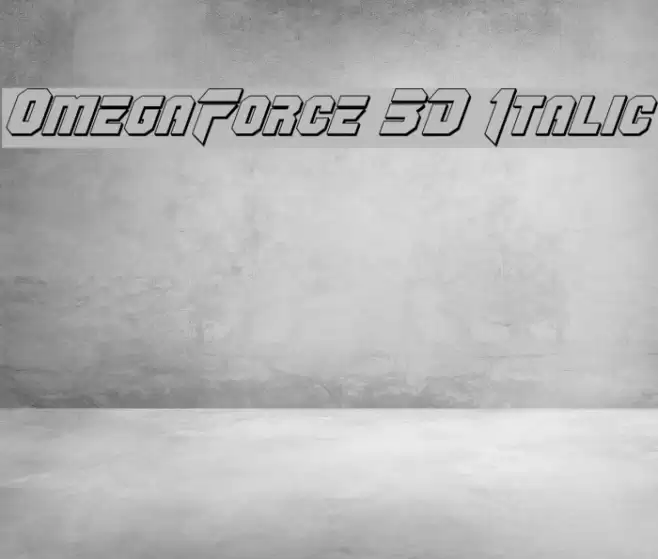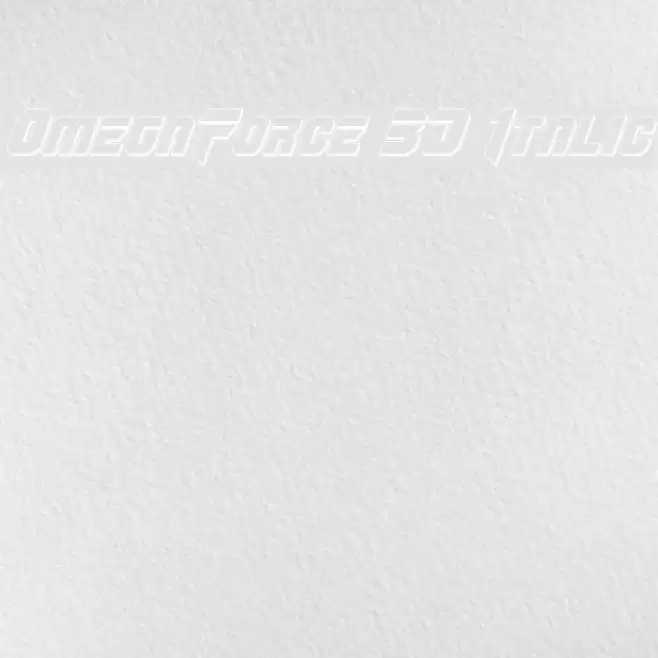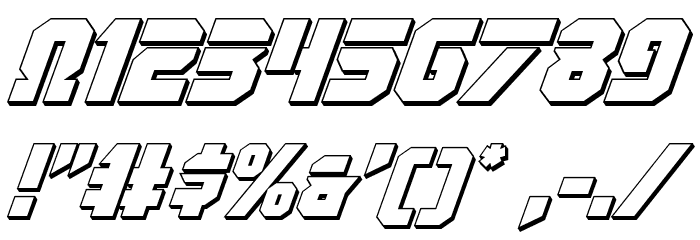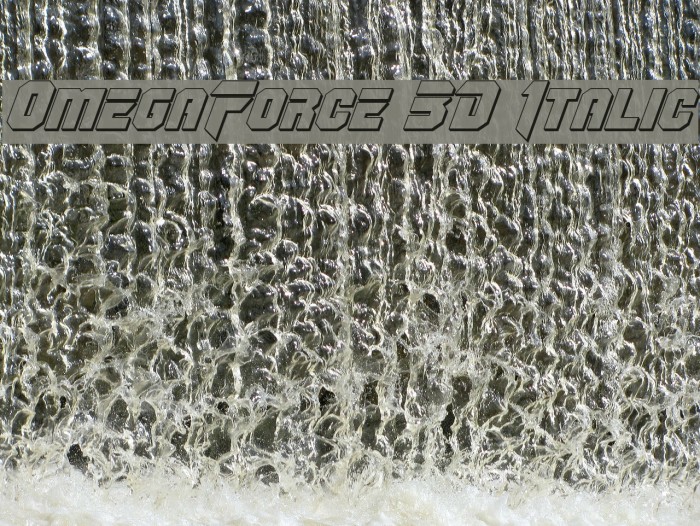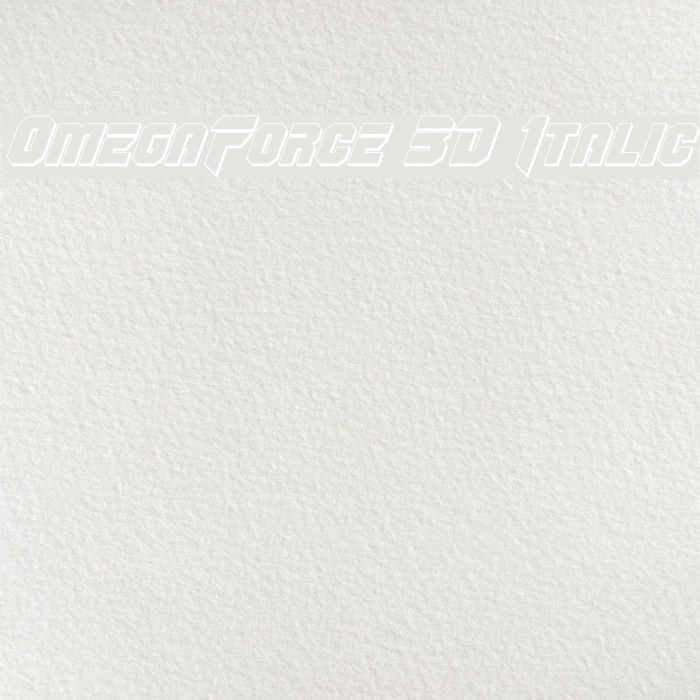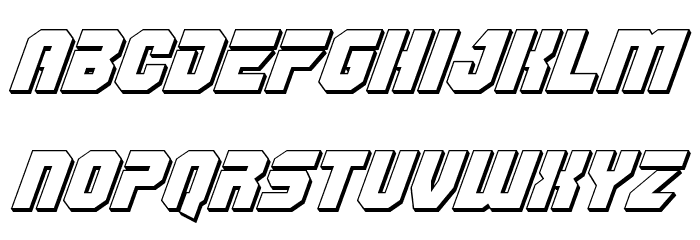
OmegaForce 3D Italic Font
OmegaForce 3D Italic Description
This font features a bold, three-dimensional design with an italic slant, creating a dynamic and futuristic appearance. The characters are outlined, giving them a distinct, shadowed effect that enhances the 3D illusion. The angular and geometric shapes of the letters contribute to a modern and edgy aesthetic, making it suitable for attention-grabbing designs. The uppercase and lowercase letters maintain a consistent style, with numbers and special characters following the same bold and outlined pattern. The font's unique style is ideal for projects that require a strong and impactful visual presence.
A bold, 3D italic font with a futuristic and dynamic design from Uncategorized fonts.
- Proposed Projects: Ideal for video game titles, sci-fi movie posters, tech branding, and any project needing a bold, futuristic look.
- Overall Style: Futuristic, Dynamic